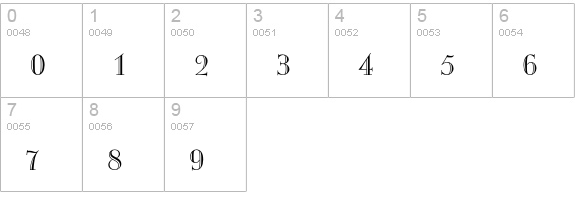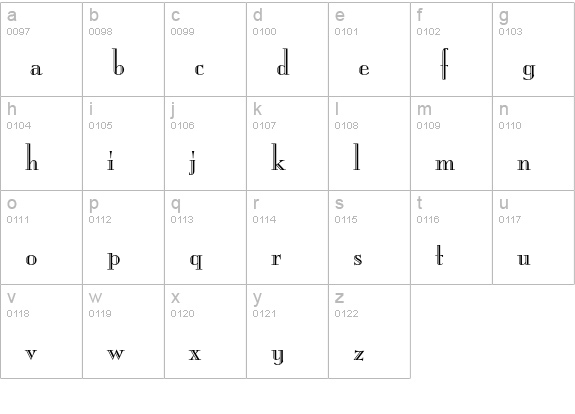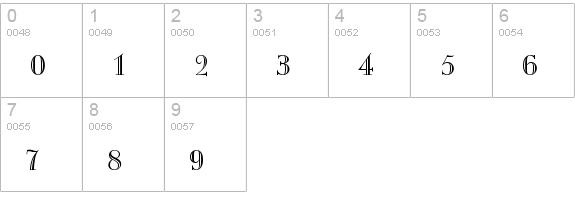
MonaLisaICG-Recut Font Details
MonaLisaICG-Recut font is a stunning and elegant typeface that exudes sophistication and charm. With its intricate details and graceful curves, this font is perfect for adding a touch of elegance to any design project. Whether you're creating invitations, greeting cards, or branding materials, MonaLisaICG-Recut font will surely make your text stand out. The best part is that MonaLisaICG-Recut font is available for free download at FontsMarket.com. This means that you can easily access this beautiful font and incorporate it into your projects without any cost. Don't miss out on the opportunity to enhance your designs with this exquisite typeface - download MonaLisaICG-Recut font today and elevate your creations to the next level!